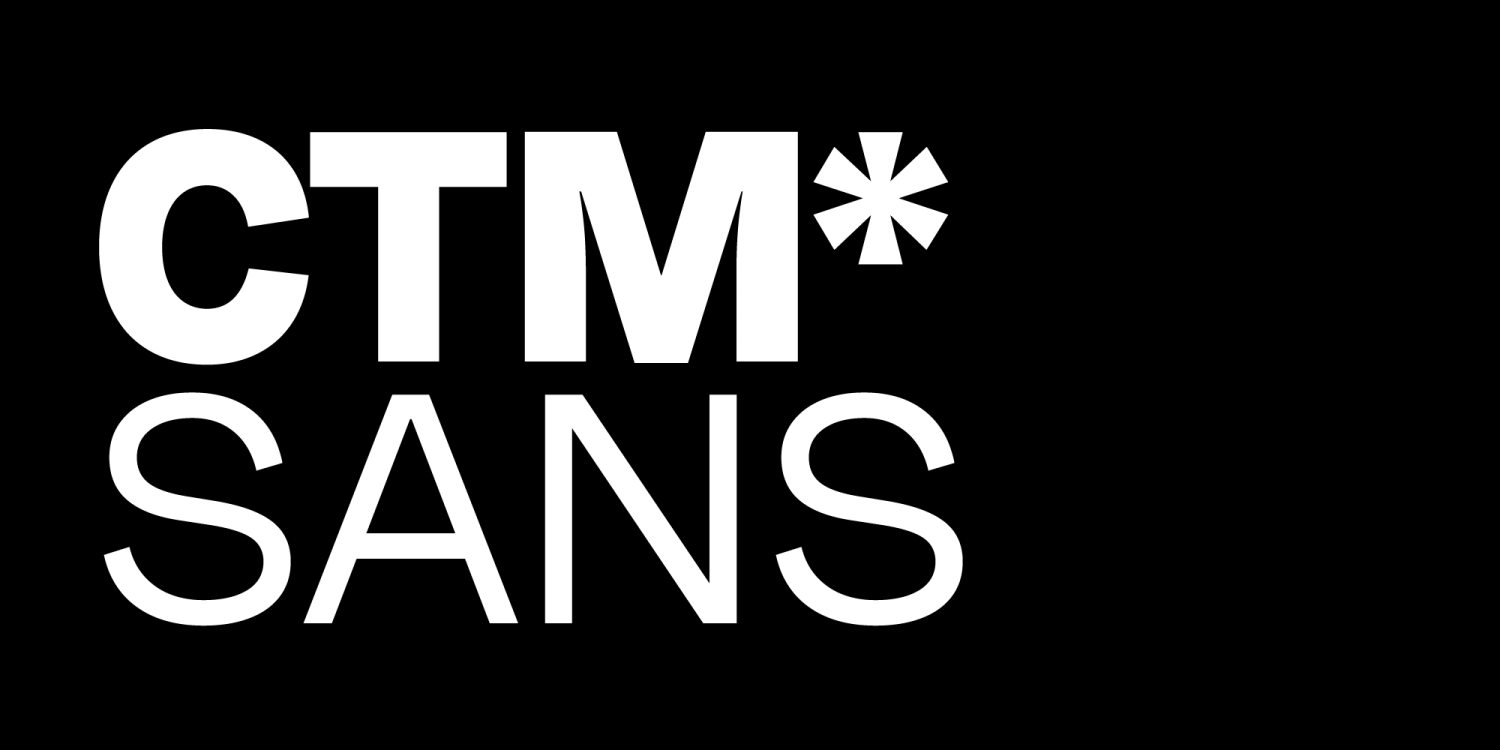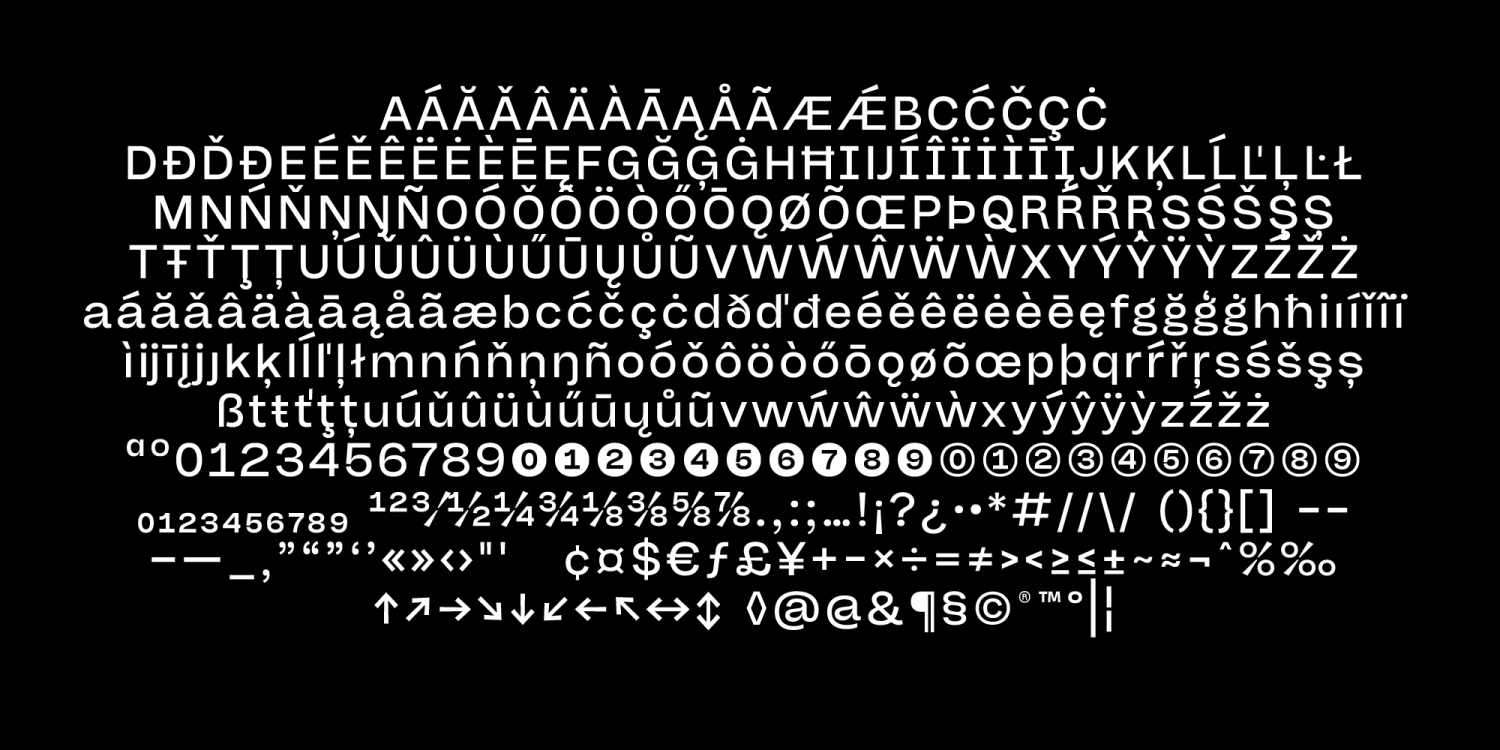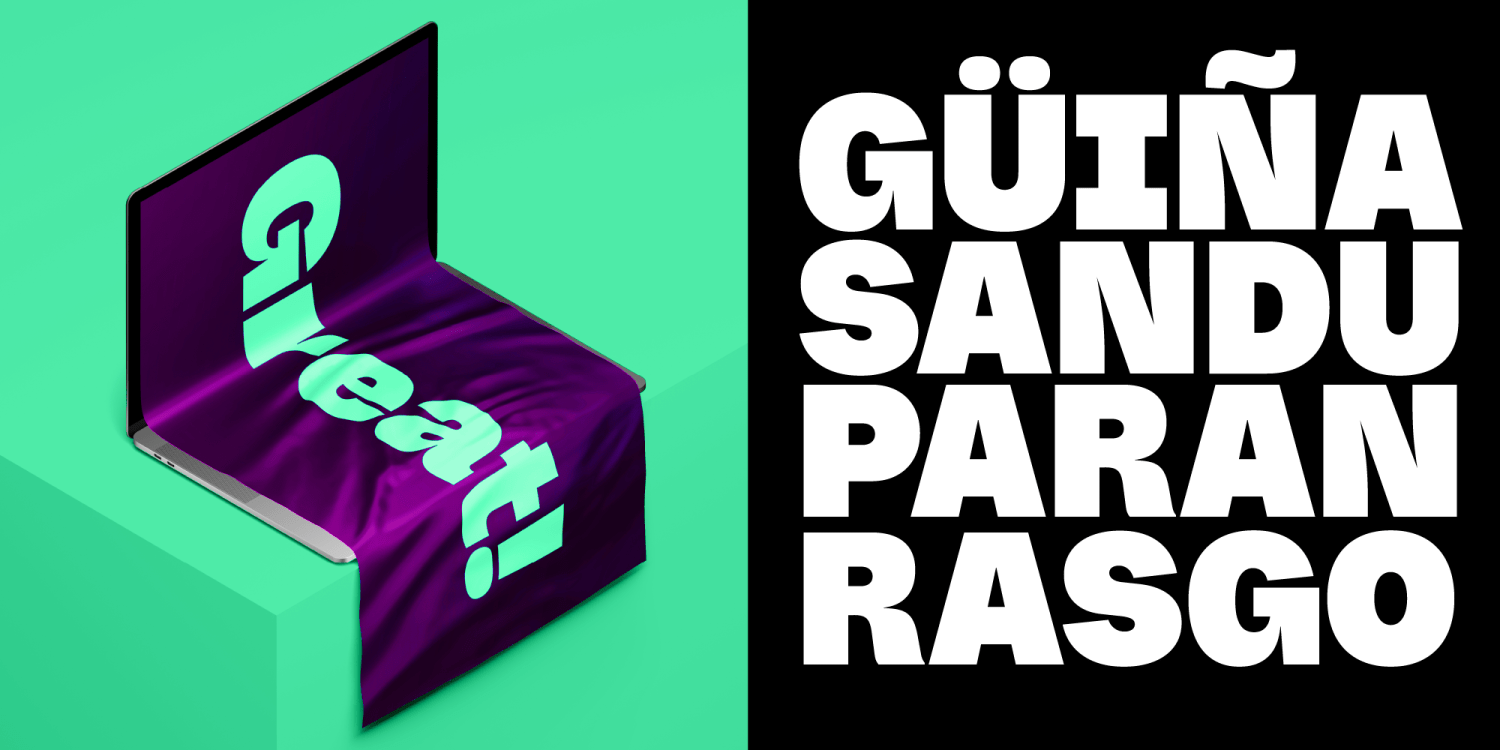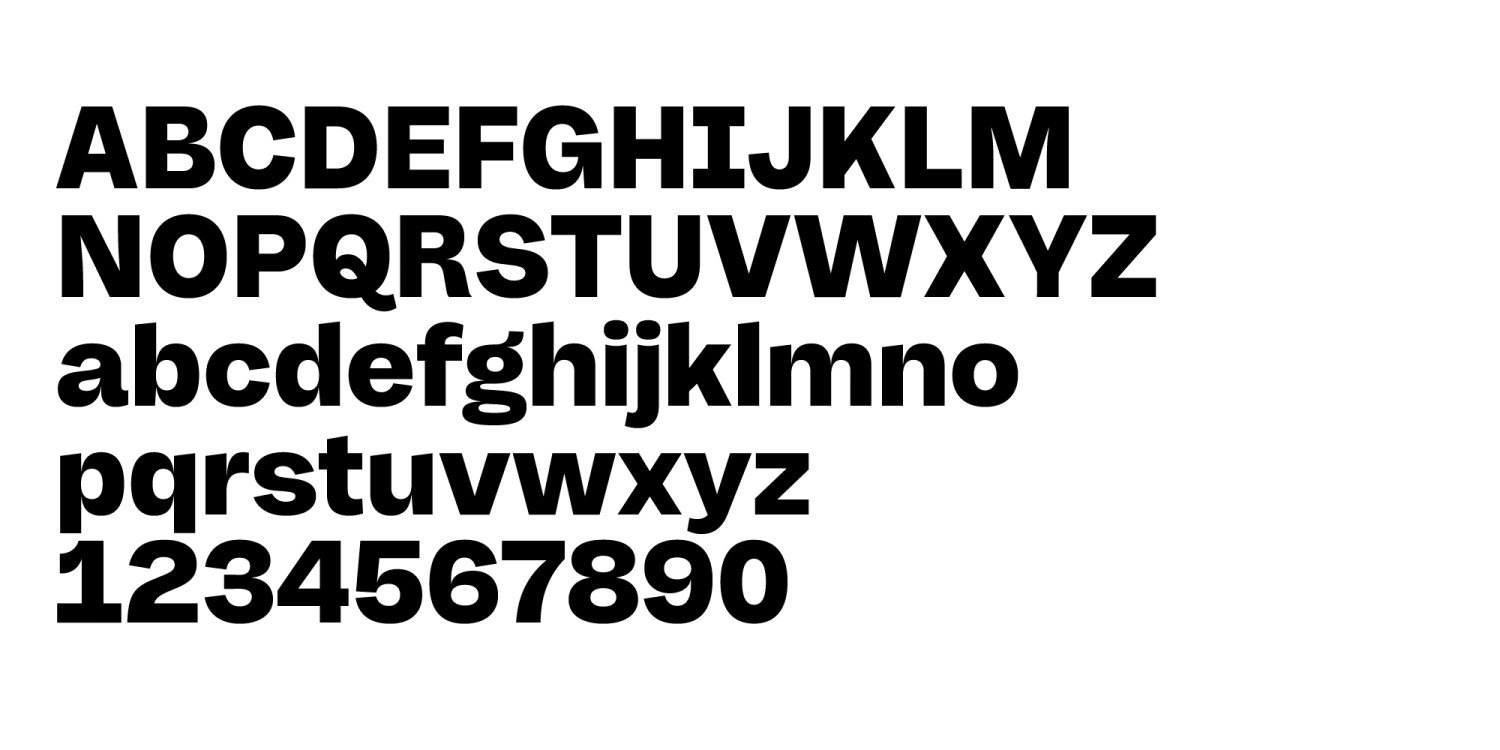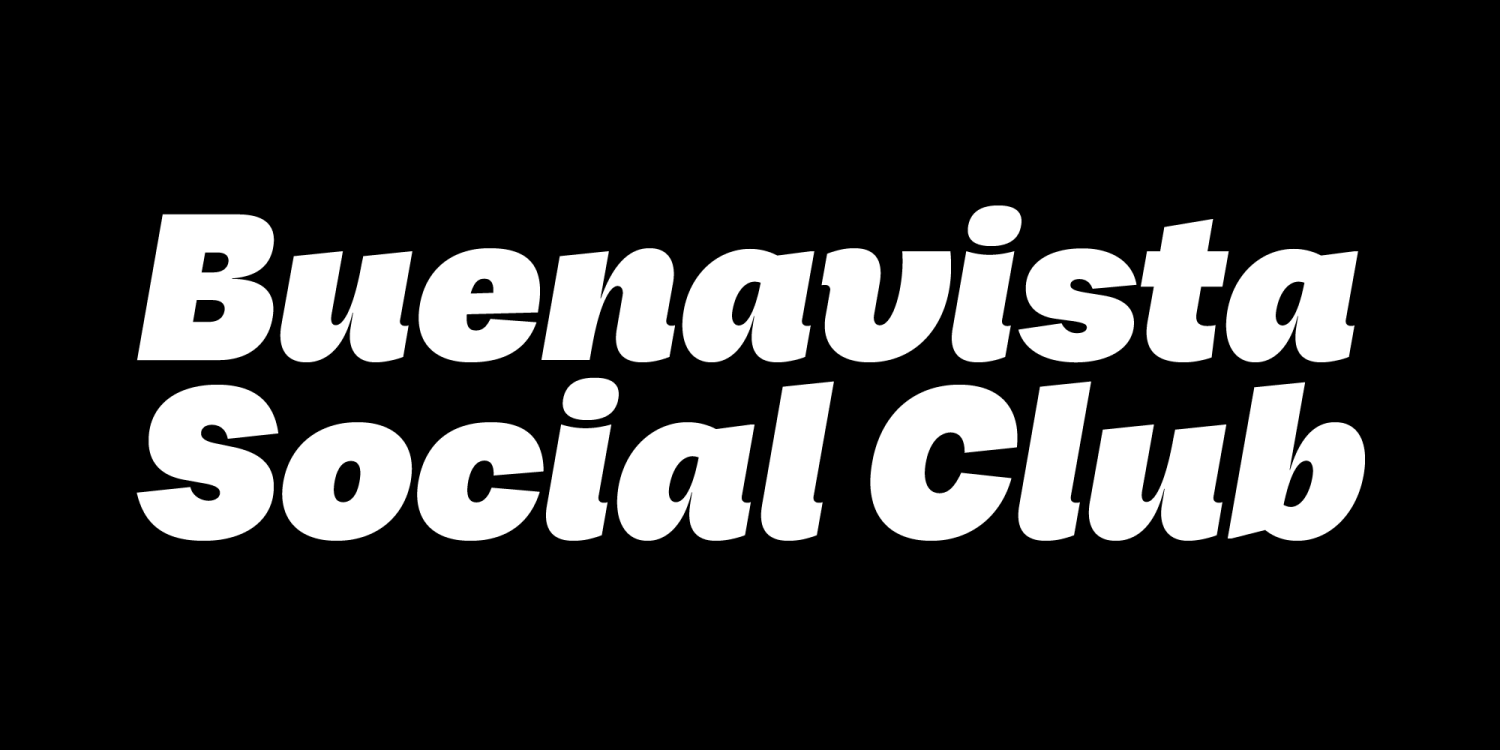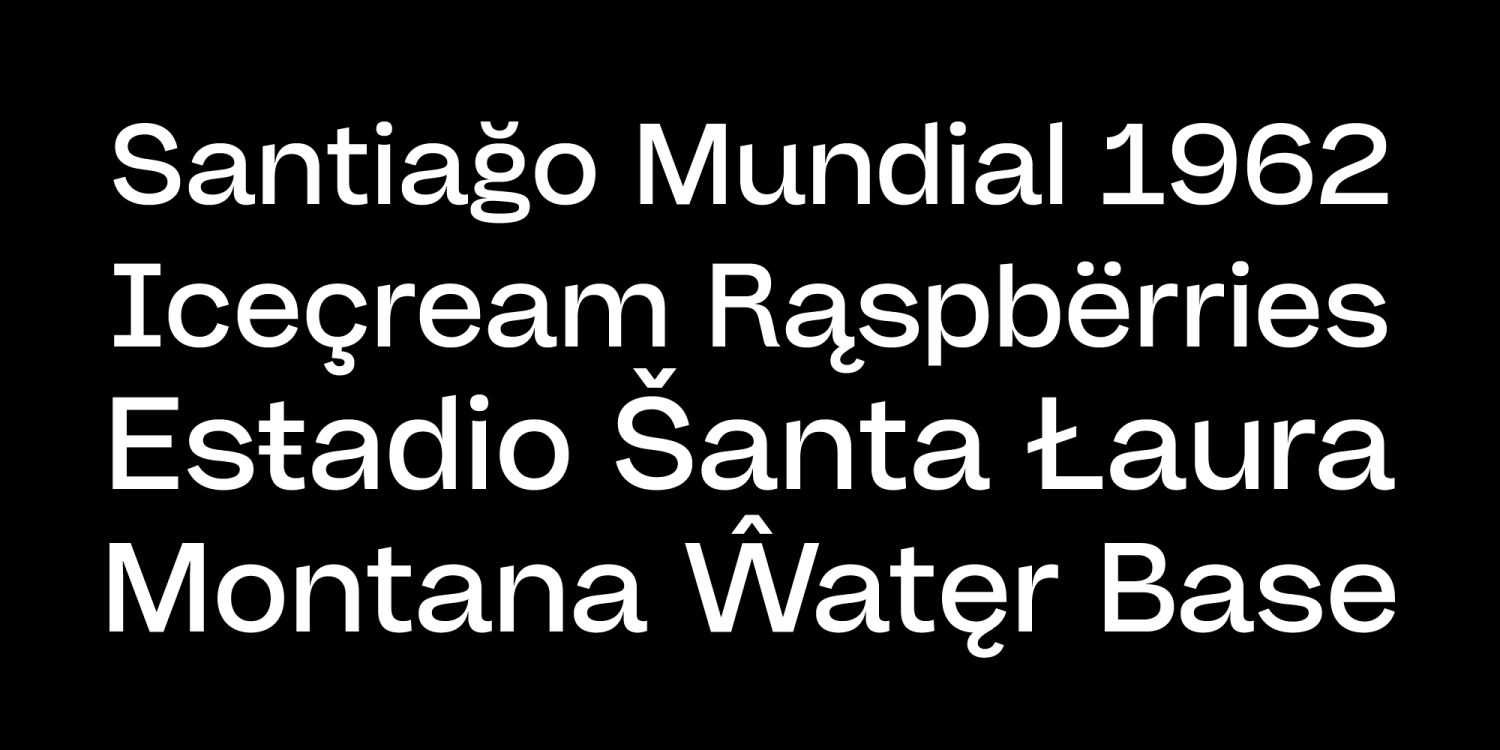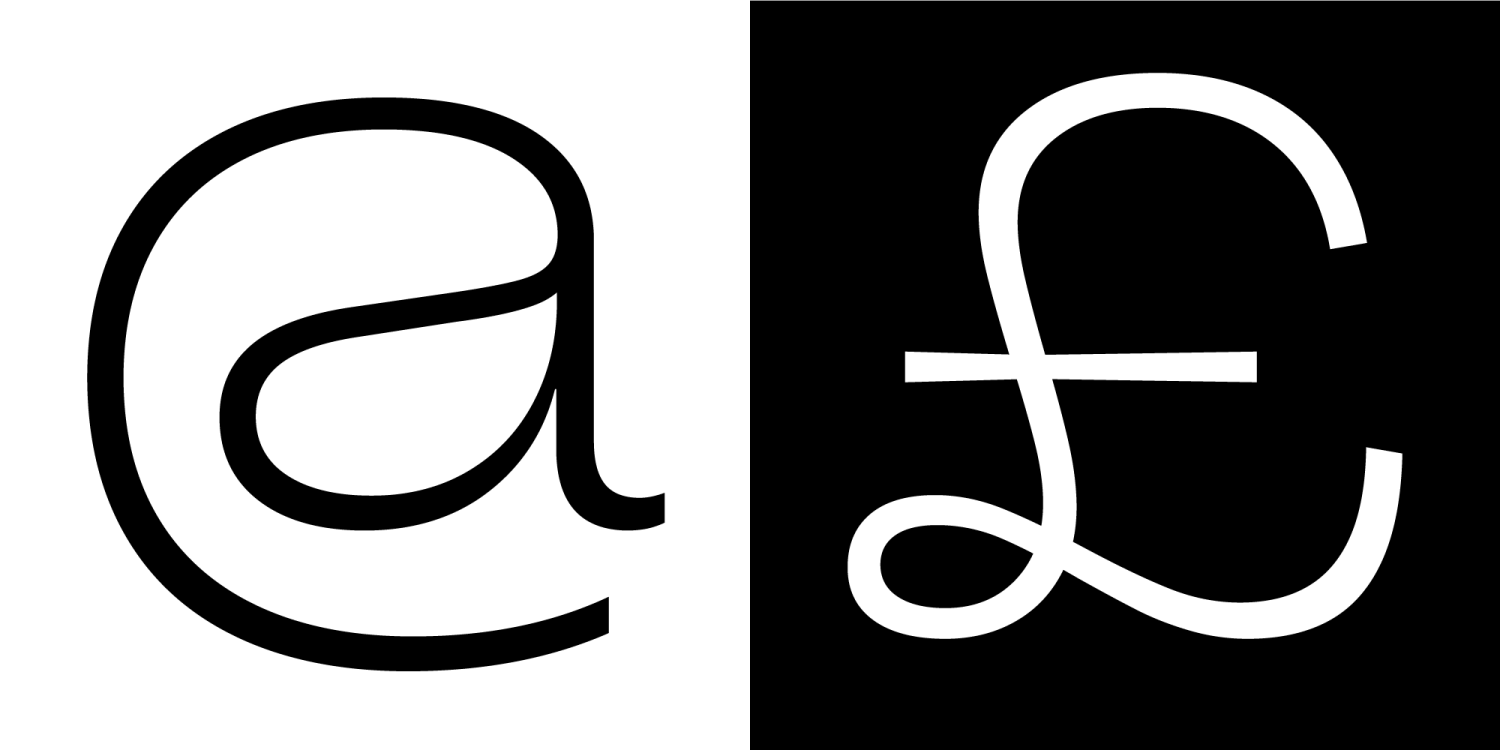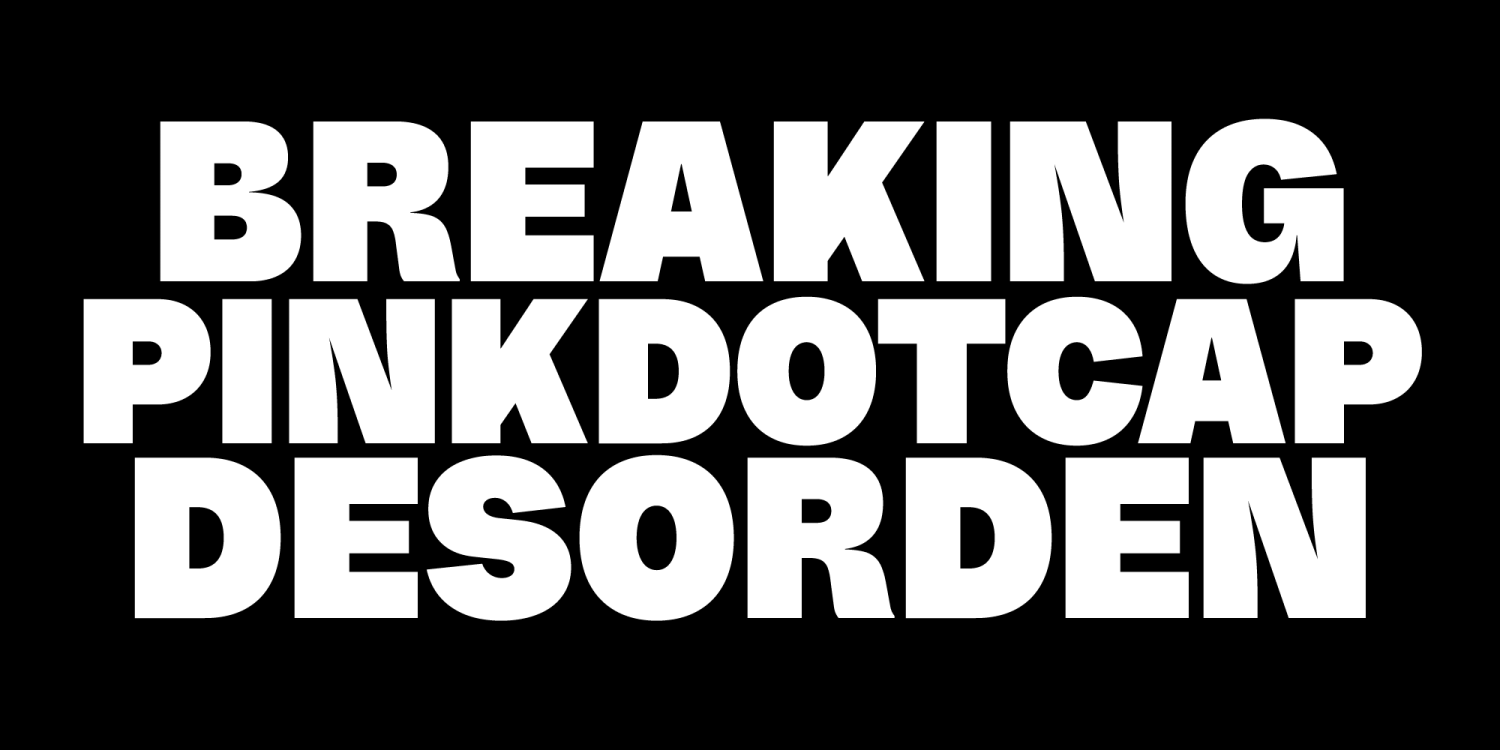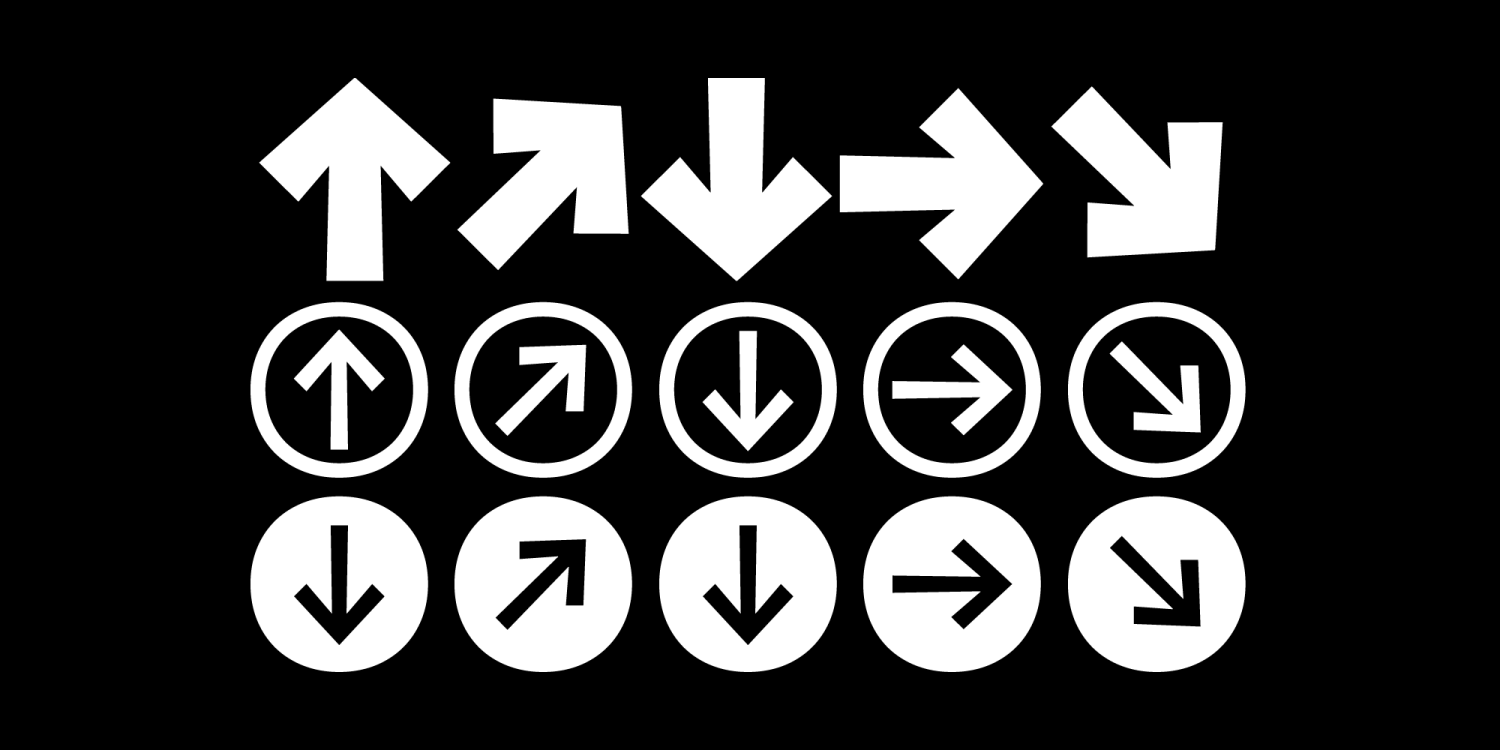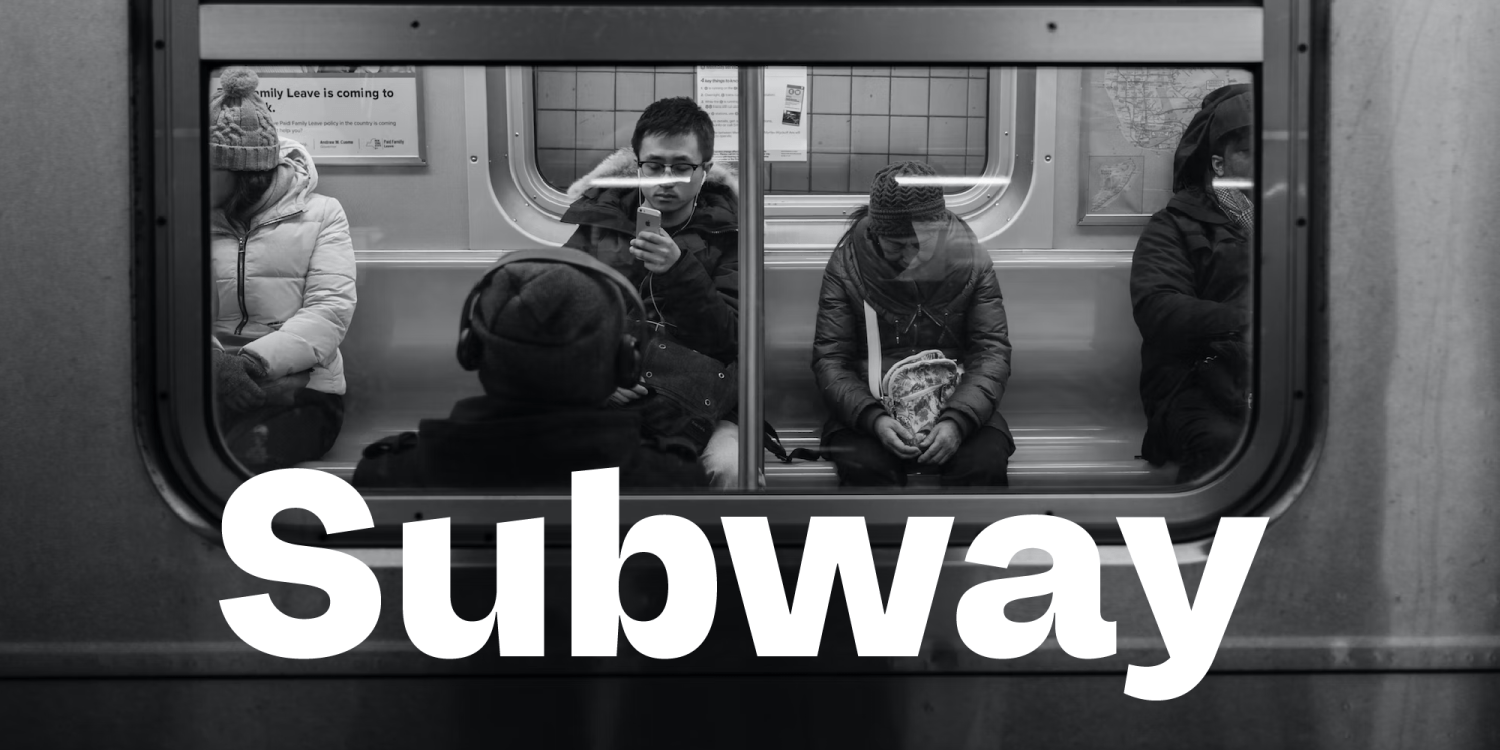
CTM Sans
Font Family by Gspr
CTM Sans is a typeface of the Neo-grotesque category, it is designed based on a previous “Herokid” typeface, but with greater freedom to creative tastes and at the same time with more rebellion and errors (quite a few, but well-intentioned) than its predecessor. This makes CTM a somewhat messy clone, for the neo-grotesque style. This font does not seek to be a correct typography, but rather fun and useful for the designer.